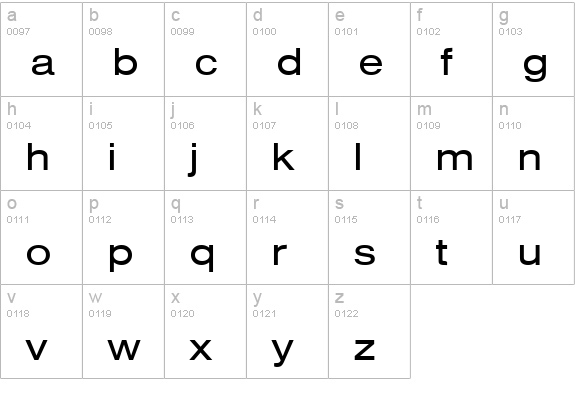
NimbusSanTExt Font Details
NimbusSanTExt is a versatile and modern font that exudes elegance and sophistication. With its clean lines and sleek design, this typeface is perfect for a wide range of design projects, from branding to editorial layouts. The NimbusSanTExt font offers a perfect balance of professionalism and creativity, making it a great choice for any designer looking to make a statement. What makes NimbusSanTExt even better is that it is completely free to download! Yes, you read that right - this amazing font is available for free at FontsMarket.com. So, whether you're working on a personal project or a commercial endeavor, you can easily access this high-quality font without breaking the bank. Don't miss out on the opportunity to add NimbusSanTExt to your font collection today. Download it for free at FontsMarket.com and elevate your designs with this stylish and sophisticated typeface.